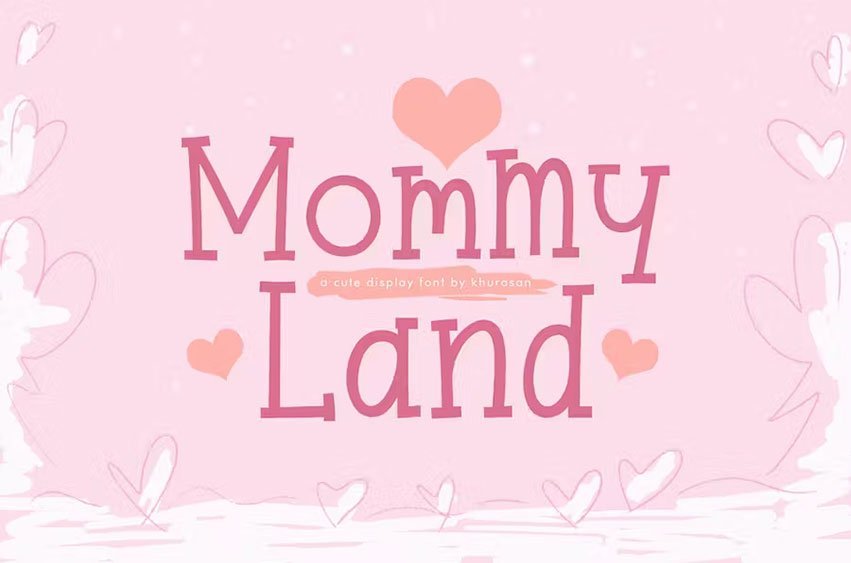
Mommy Land Font is a fun display typeface with a cheerful theme for your fun project. Mommyland font is suitable for logos, branding, greeting card, poster and any design that you create.